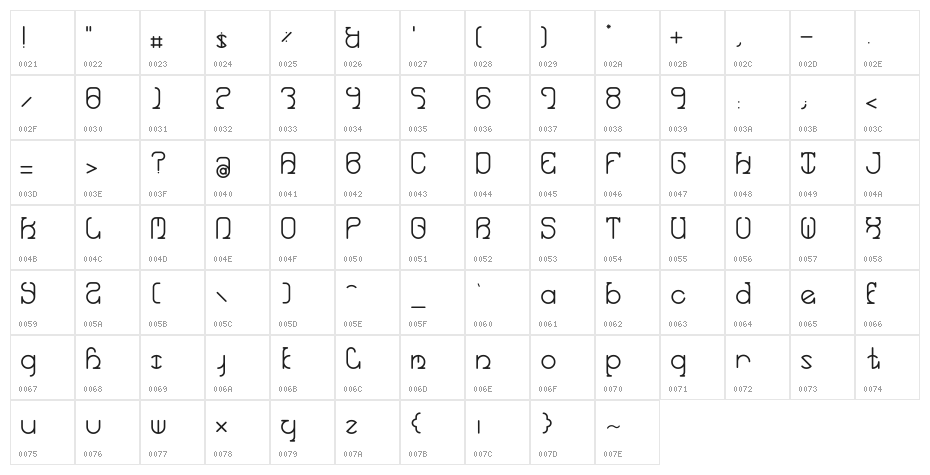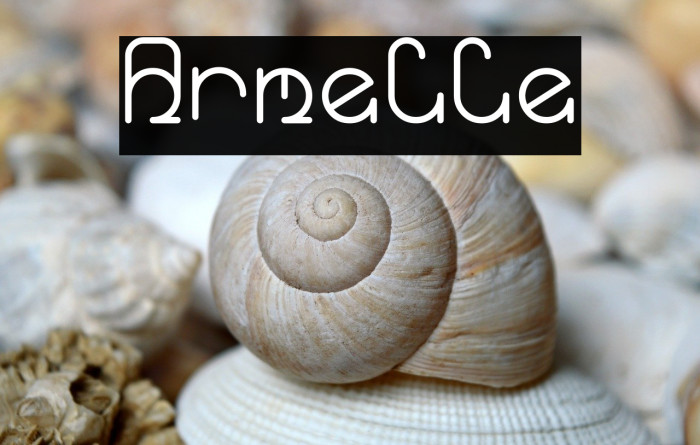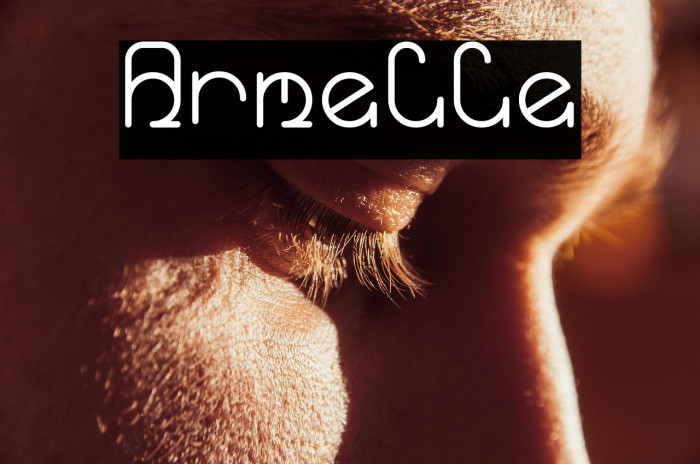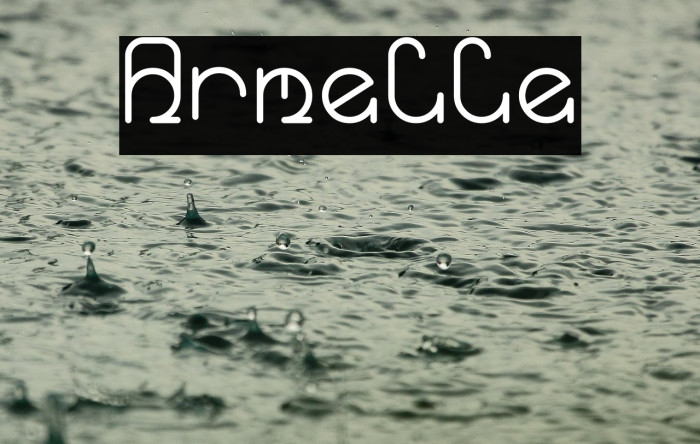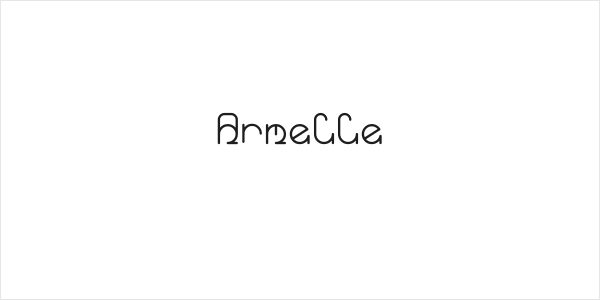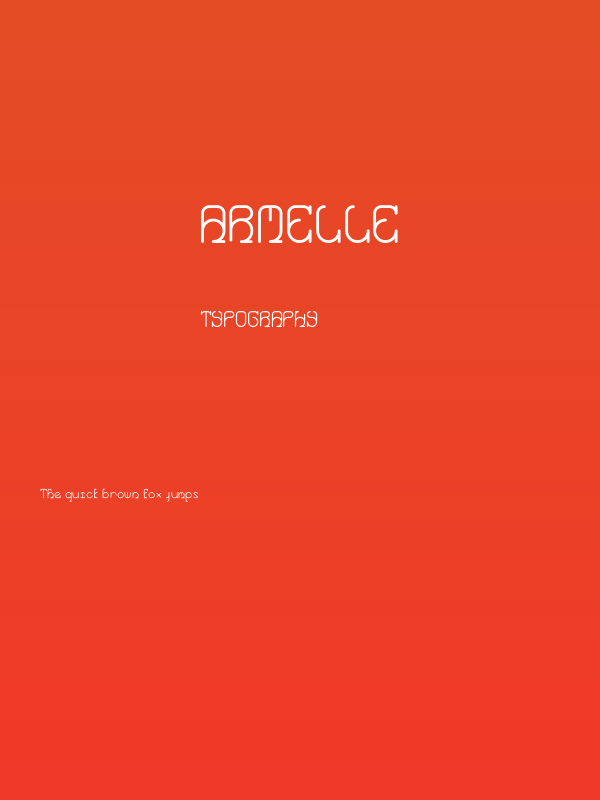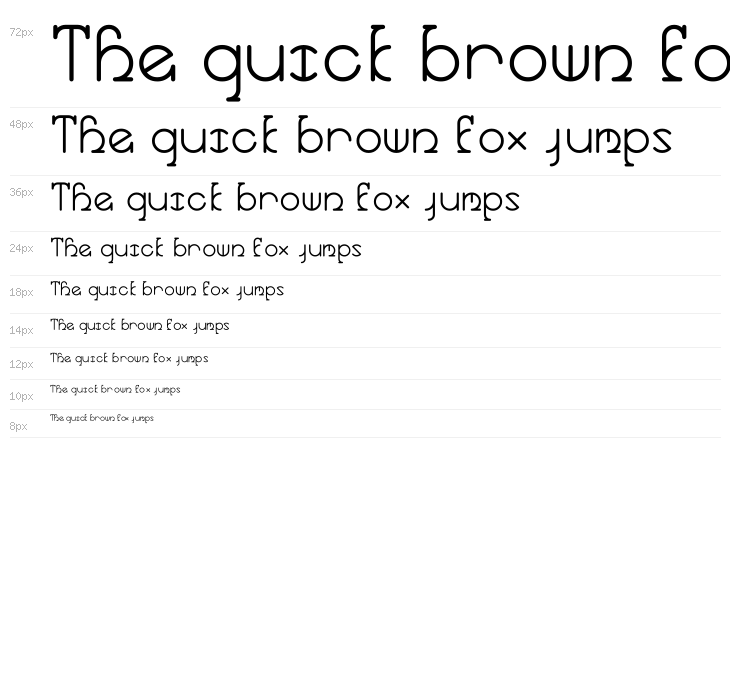
Armelle Font
Armelle Description
This font features a unique and playful design with a modern twist. The characters exhibit a rounded, almost tubular form with consistent stroke widths, giving it a clean and approachable appearance. The uppercase letters are distinct with subtle curves, while the lowercase letters maintain a harmonious flow. Numbers are equally stylized, matching the overall aesthetic of the alphabet. Special characters are creatively integrated, maintaining the font's cohesive style. The font's design is both functional and decorative, making it suitable for a variety of creative applications.
| Use Case | Logos, Headlines, Creative projects |
| Proposed Projects | Ideal for branding, packaging design, children's books, and creative digital media. |